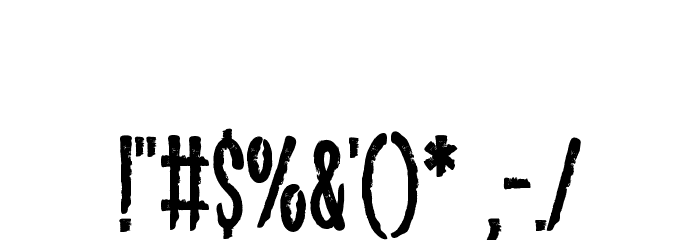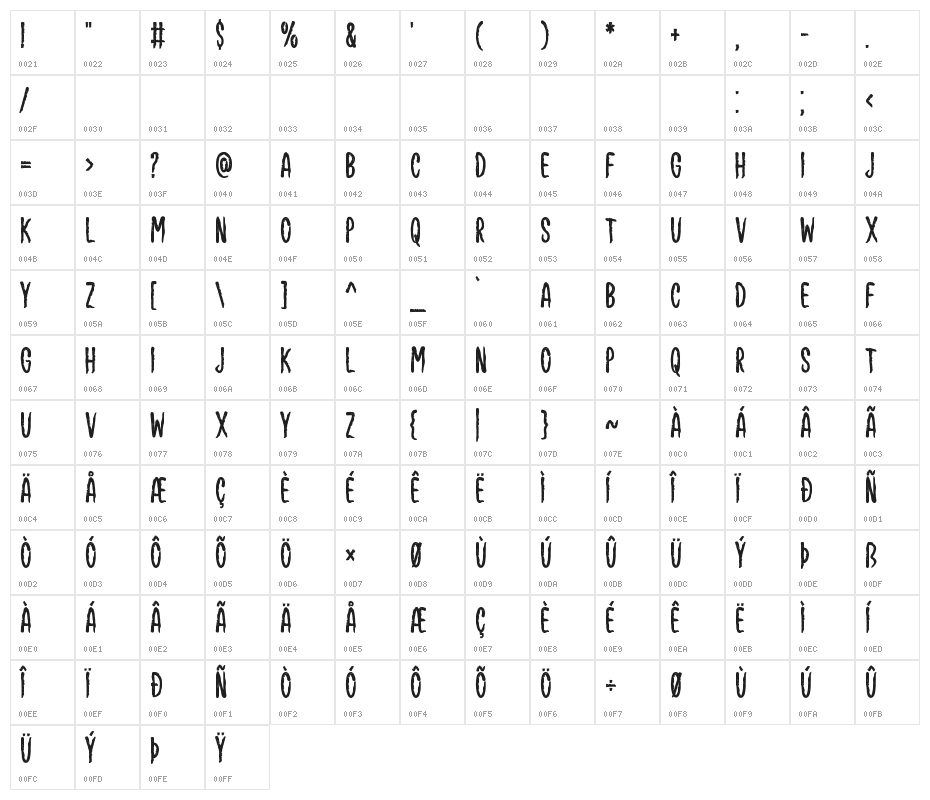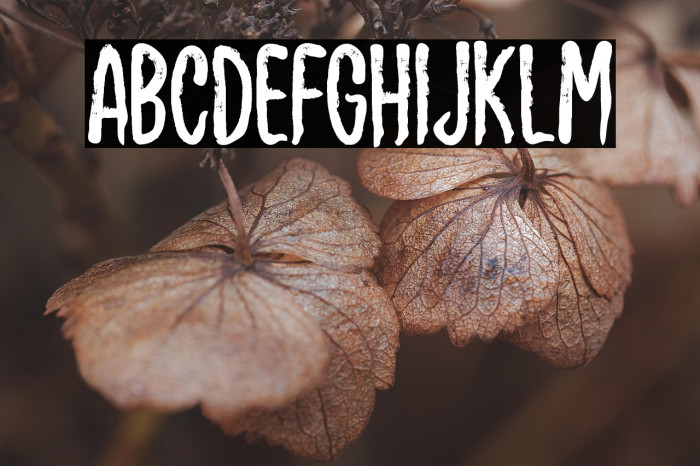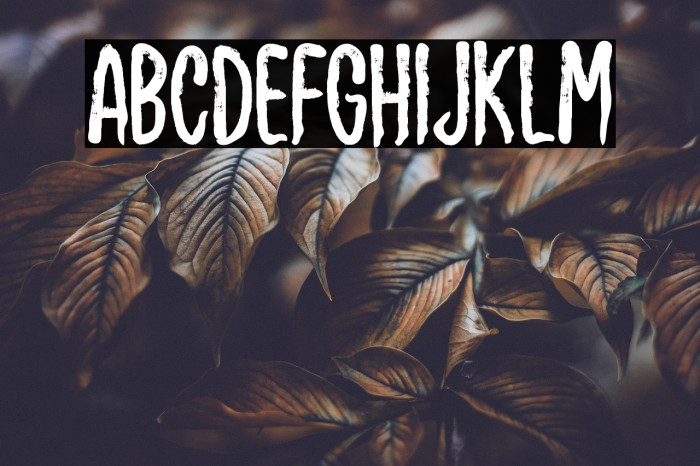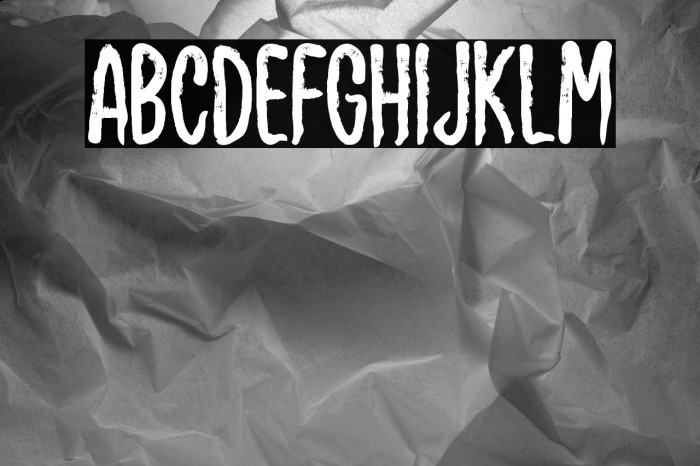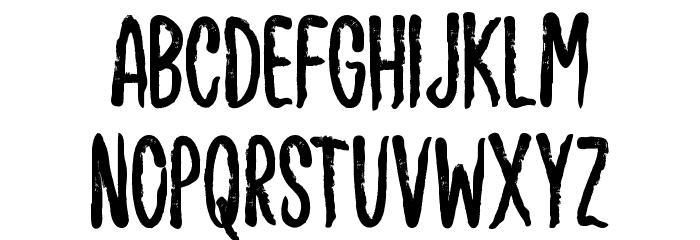
Willow Pumpkin Font
Willow Pumpkin Description
This font features a bold, brush-like appearance with a slightly distressed texture, giving it a rustic and hand-crafted feel. The uppercase and lowercase letters are consistent in style, maintaining a cohesive look throughout the alphabet. The strokes are uneven, adding to the organic and dynamic nature of the font. The numbers and special characters follow the same design principles, ensuring uniformity across all glyphs. This font's unique style makes it stand out, perfect for projects that require a touch of personality and flair.
| Overall Style | Rustic, Handcrafted |
| Proposed Projects | Ideal for branding, posters, event invitations, and any project needing a handcrafted, artistic touch. |